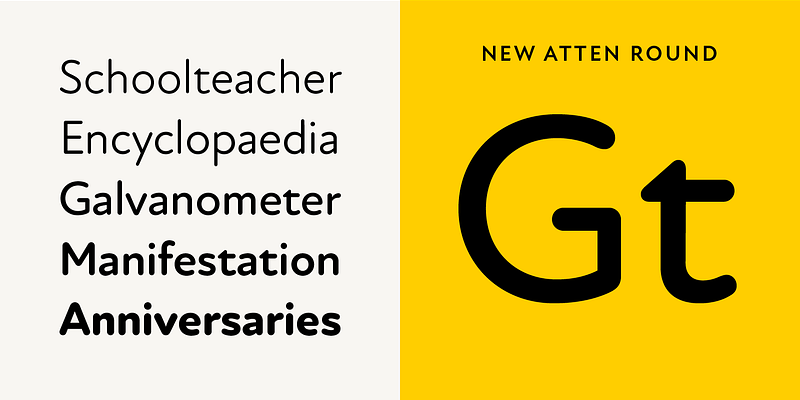
New Atten Round Font Free Download is a modern sans-serif typeface featuring rounded edges and a clean, friendly design. Its smooth curves and balanced proportions make it ideal for a wide range of applications, from branding and web design to signage, packaging, and corporate communications.
New Atten Round Font Free Download offers excellent readability, making it perfect for both display text and smaller applications. Its simple and approachable design gives it a versatile, professional feel while still maintaining a warm and inviting aesthetic.
Whether you're working on a minimalist design, tech branding, or creative marketing materials, New Atten Round brings a sleek and modern touch to your typography.